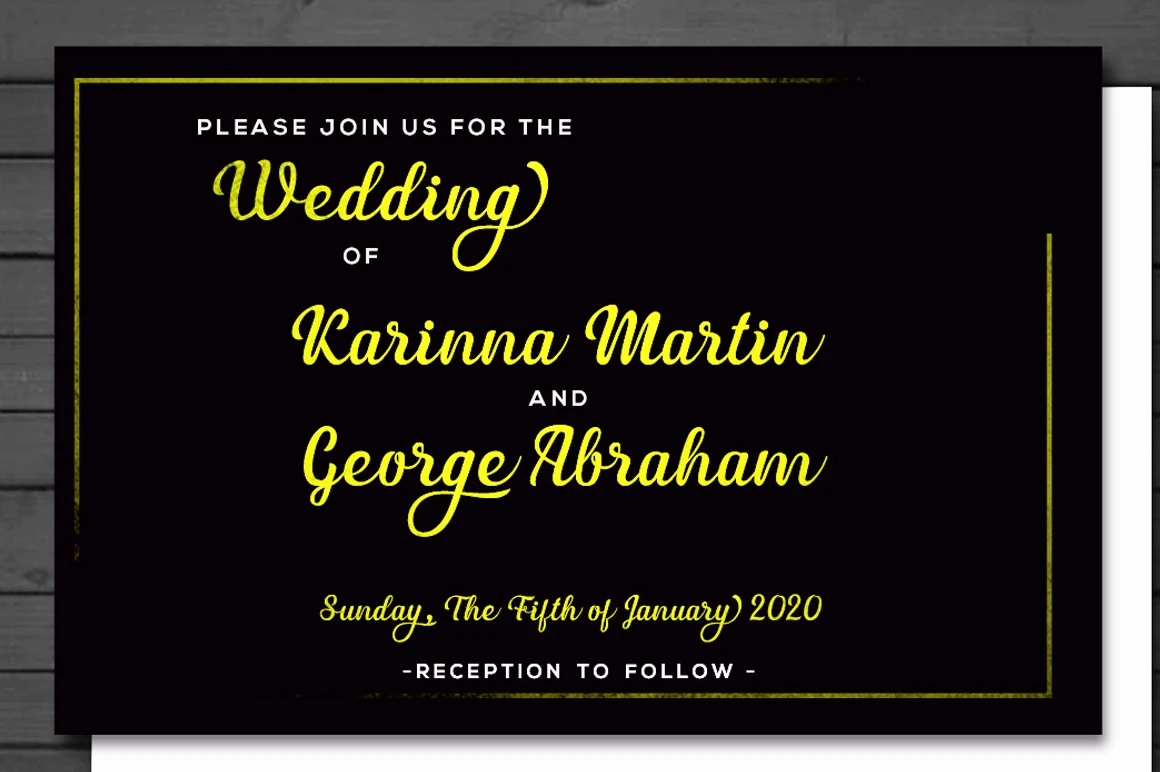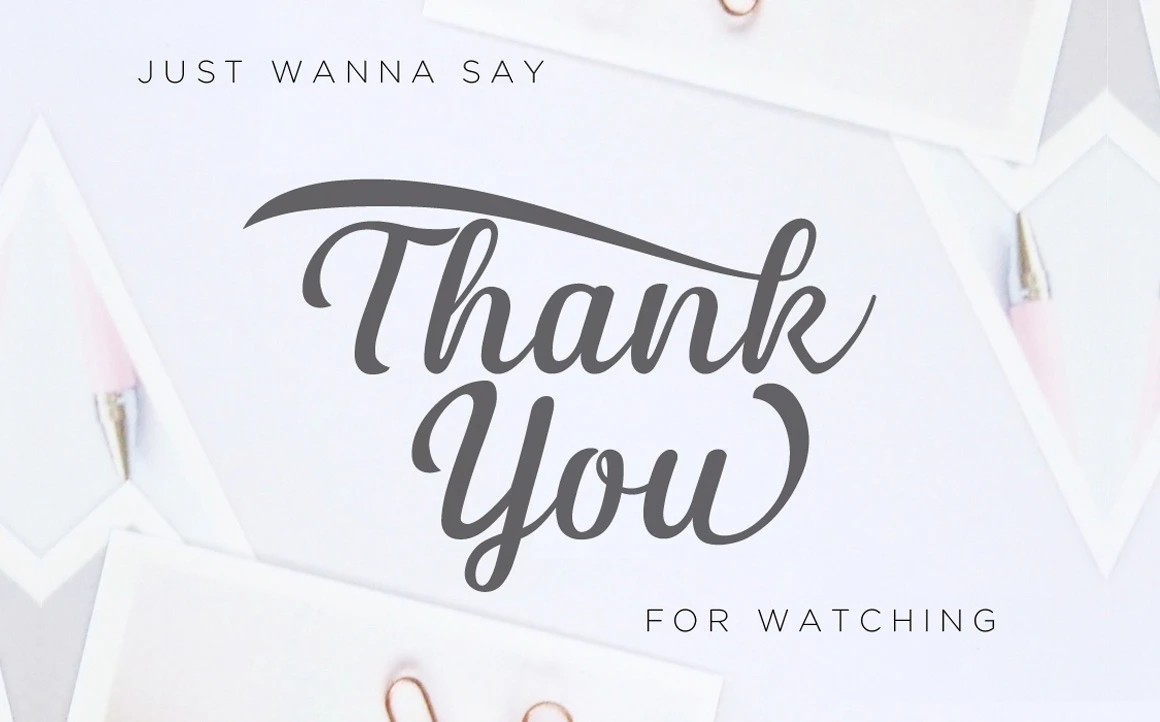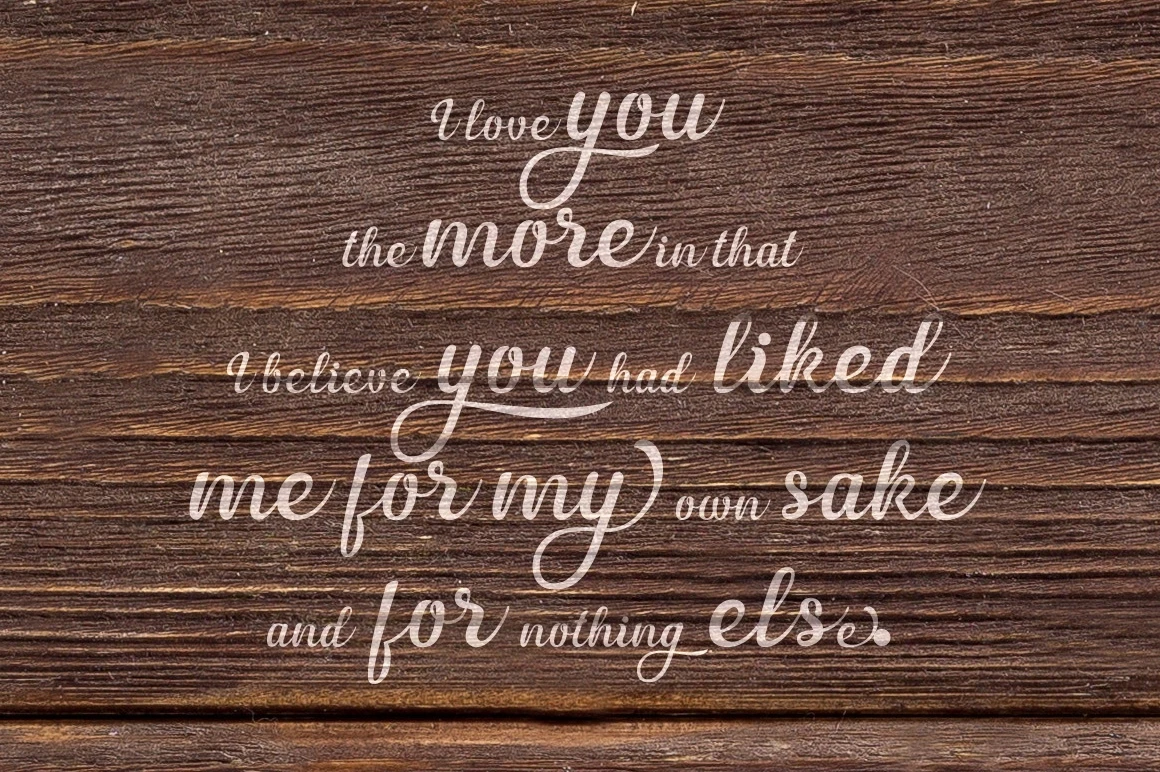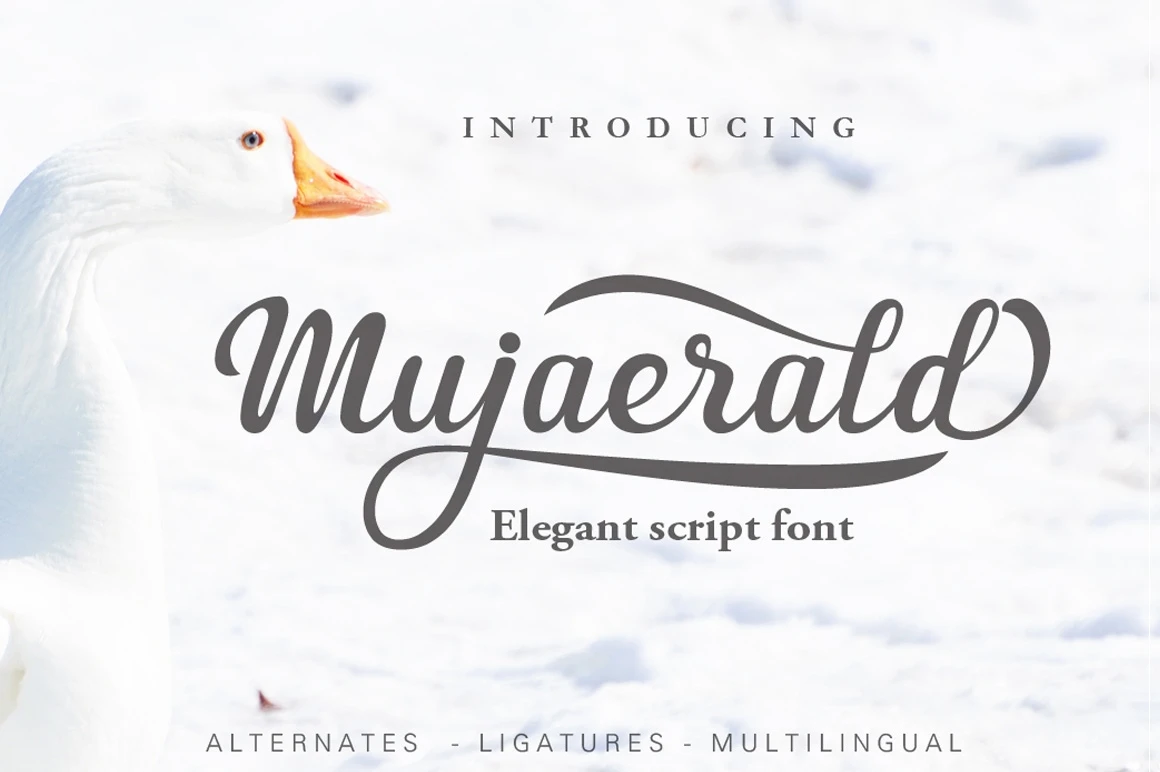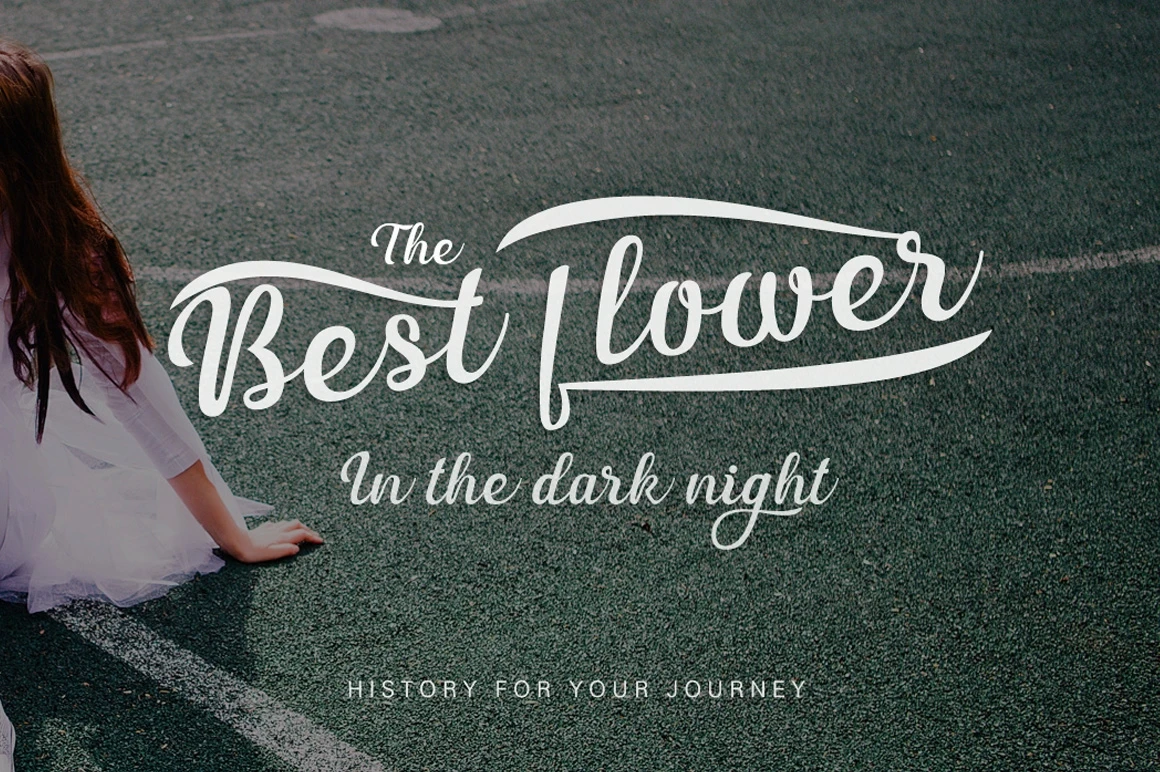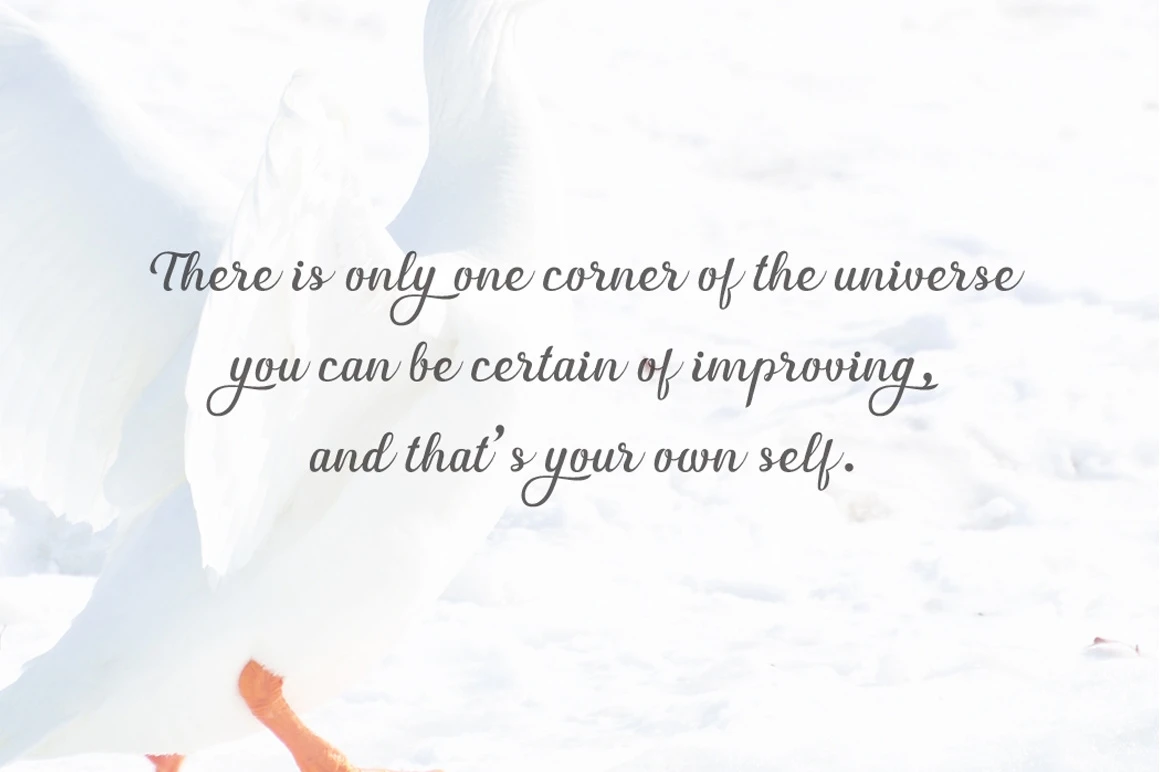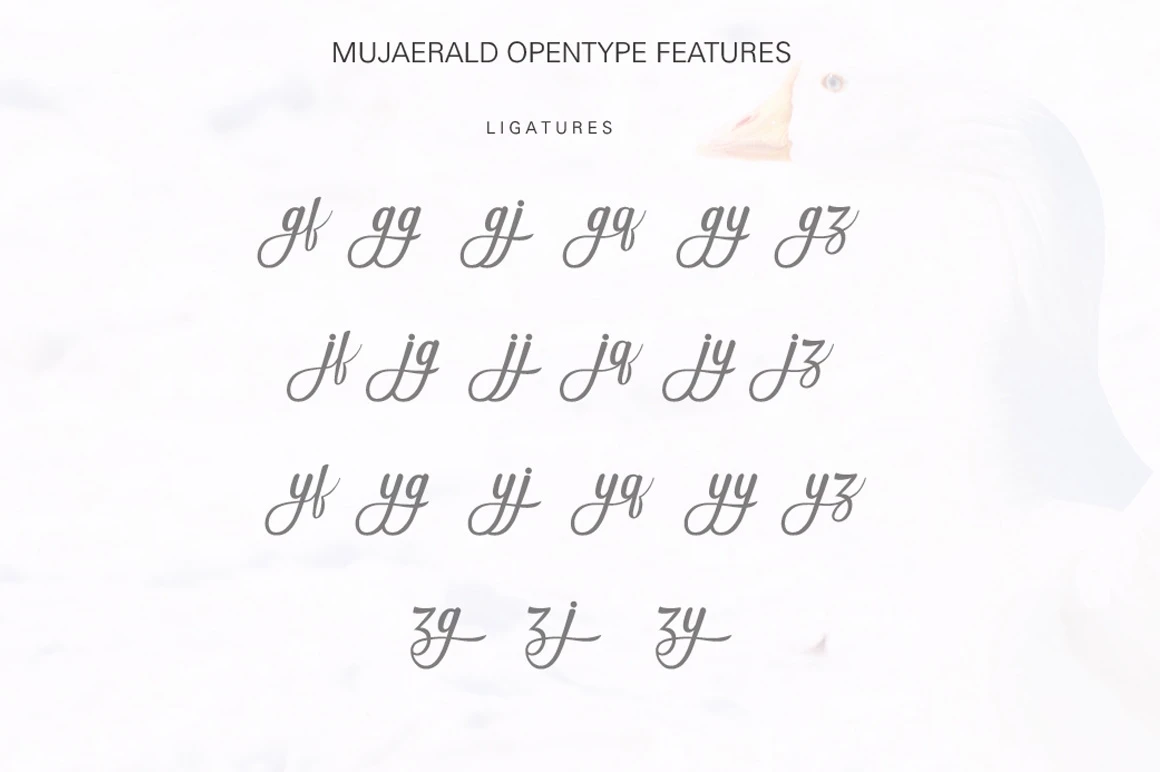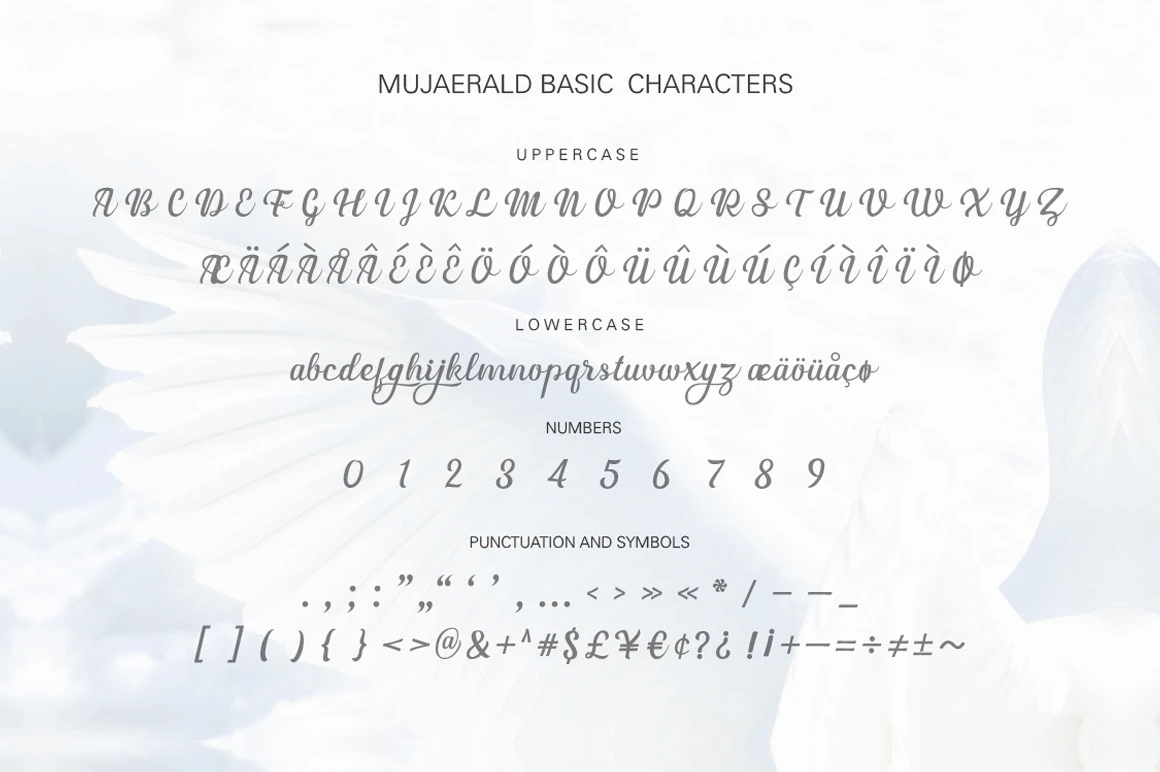
Mujaerald is a nice script font with clear, simple and elegant look. The available alternates and ligatures offer a number of different characters that give your typographic a unique look.
It is perfect to apply in various formal forms like invitations, labels, menus, Logos, fashion, make up, stationery, letterpress, romantic novels, magazines, books, greeting / wedding cards, packaging, labels and more.
- Uppercase A-Z
- Lowercase a-z
- Numbers 0-9
- Punctuation
- Custom Ligatures
- lowercase alternates
- Multilingual support